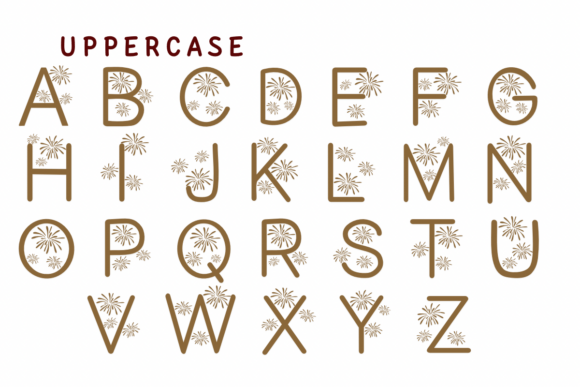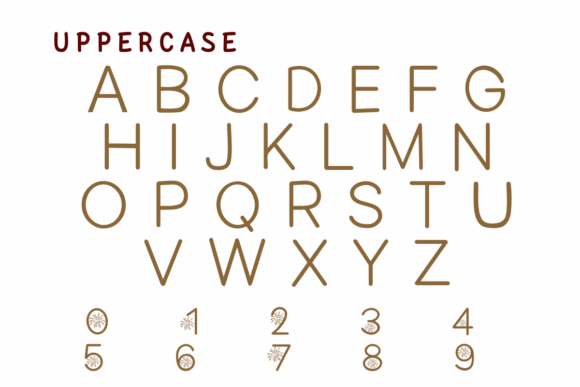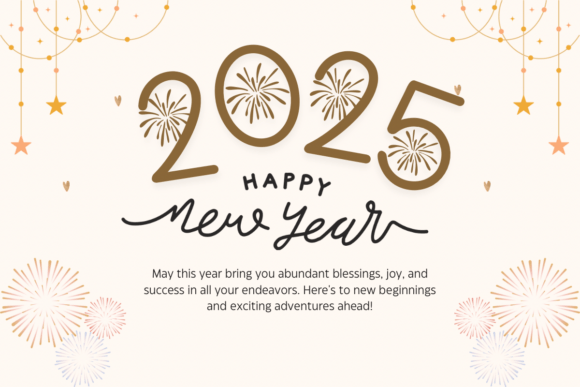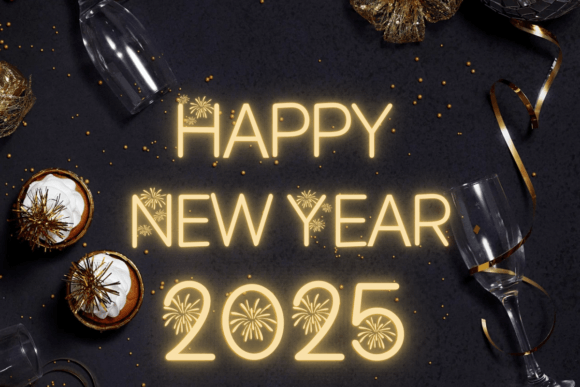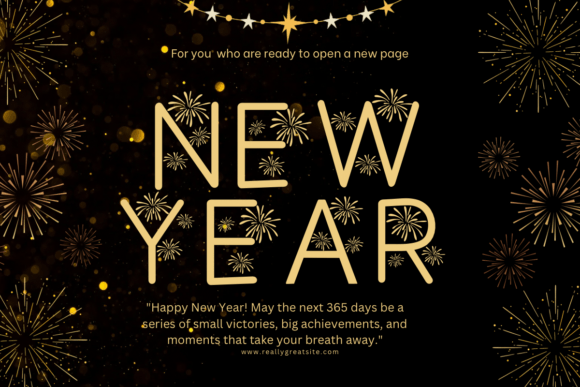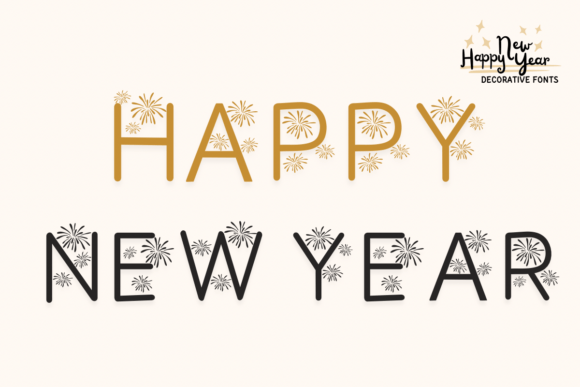
Happy New Year Font: A Decorative Delight for Designers and Crafters
As the clock strikes midnight on December 31st, the world welcomes a brand new year filled with hope, promise, and endless possibilities. What better way to celebrate this joyous occasion than with a festive and fun font that captures the spirit of the season? Look no further than the Happy New Year font, a decorative delight that’s perfect for designers and crafters looking to add a touch of whimsy to their projects.
What is Happy New Year Font?
Happy New Year font is a decorative font designed to bring a smile to your face and a touch of festivity to your designs. With its playful and upbeat vibe, this font is ideal for creating eye-catching projects that scream “Happy New Year!” Whether you’re a designer, crafter, or simply a DIY enthusiast, Happy New Year font is the perfect addition to your font collection.
Uses for Happy New Year Font
So, what can you do with Happy New Year font? The possibilities are endless! Here are just a few ideas to get you started:
- Take notes in style: Use Happy New Year font to add a touch of whimsy to your notes and journals. Perfect for keeping track of your New Year’s resolutions or planning your next craft project.
- Write a diary with flair: Make your diary entries extra special with Happy New Year font. Add a decorative touch to your daily musings and make them a keepsake to treasure.
- Create greeting cards: Design beautiful greeting cards for friends and family with Happy New Year font. Perfect for sending holiday cheer and well-wishes.
- Make banners and signs: Use Happy New Year font to create eye-catching banners and signs for parties, events, and celebrations.
- Design social media posts: Add a touch of festivity to your social media posts with Happy New Year font. Perfect for sharing holiday cheer with your followers.
- Customize mugs, cards, and shirts: Use Happy New Year font to create personalized gifts for friends and family. Perfect for a unique and thoughtful present.
Why Choose Happy New Year Font?
So, why choose Happy New Year font over other decorative fonts? Here are just a few reasons:
- Unique and playful design: Happy New Year font features a unique and playful design that’s sure to stand out from the crowd.
- Easy to read: Despite its decorative nature, Happy New Year font is easy to read and understand, making it perfect for a wide range of projects.
- Versatile: Happy New Year font can be used for a wide range of projects, from notes and journals to greeting cards and social media posts.
- Fun and festive: Happy New Year font captures the spirit of the holiday season, making it perfect for designers and crafters looking to add a touch of whimsy to their projects.
Tips for Using Happy New Year Font
Here are a few tips for getting the most out of Happy New Year font:
- Use it sparingly: While Happy New Year font is fun and festive, it can be overwhelming if used too much. Use it sparingly to add a touch of whimsy to your projects.
- Pair it with other fonts: Happy New Year font pairs well with other fonts, such as serif and sans-serif fonts. Experiment with different pairings to find the perfect combination.
- Experiment with colors: Happy New Year font looks great in a variety of colors, from bright and bold to pastel and subtle. Experiment with different colors to find the perfect hue for your project.
Happy New Year font is a decorative delight that’s perfect for designers and crafters looking to add a touch of whimsy to their projects. With its playful and upbeat vibe, this font is ideal for creating eye-catching projects that scream “Happy New Year!” Whether you’re taking notes, writing a diary, or making greeting cards, Happy New Year font is the perfect addition to your font collection. So why wait? Download Happy New Year font today and start creating your own festive and fun projects!